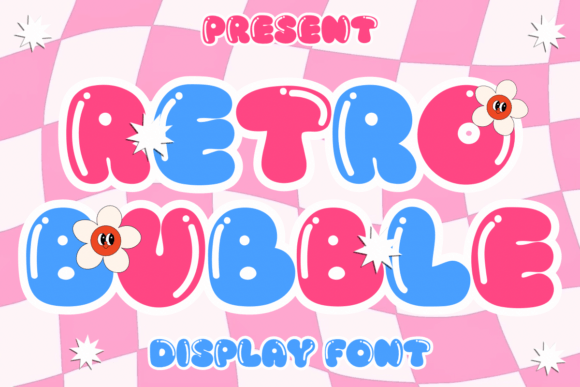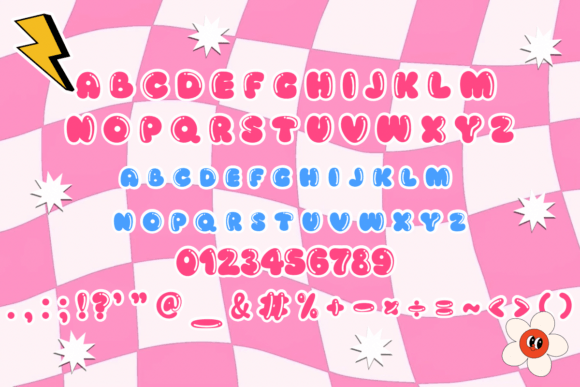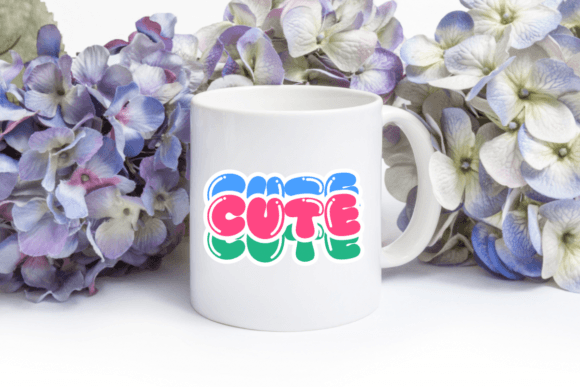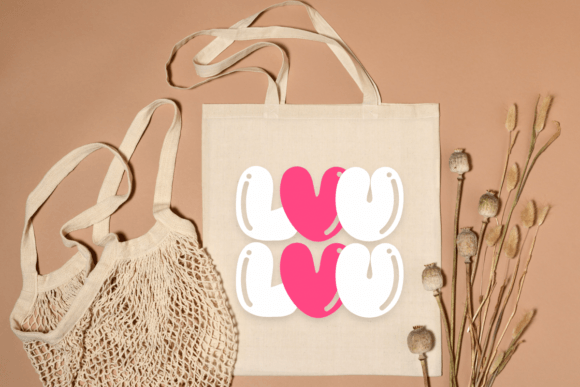
Retro Bubble Font: Playful Display Font for Cricut & Branding
About the Retro Bubble Font
Get ready to be inspired by Retro Bubble Font, a fresh and dynamic typeface for modern creators. Retro Bubble
is a fun and shiny display font that looks like it’s made of bubbles. It has a playful style with rounded letters that give a cheerful and light feel. This font is perfect for kids’ projects, party invitations, and anything that needs a touch of fun!
Retro Bubble shines in headlines, logos for playful brands, and short, impactful text on packaging or posters. Its bubbly forms are less effective for body copy or UI elements; the rounded forms can reduce readability in longer blocks of text.
Consider pairing it with a clean sans-serif like Open Sans for a balanced contrast, or a classic serif like Garamond for a more sophisticated feel. For a bolder statement, a geometric sans-serif could work well.
The font’s overall personality is undeniably cheerful and friendly, conveying a sense of lighthearted fun and approachability.
Retro Bubble Font Usage Examples
Retro Bubble Font Example